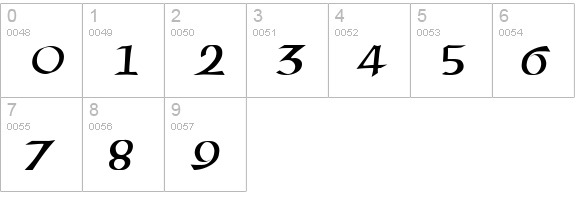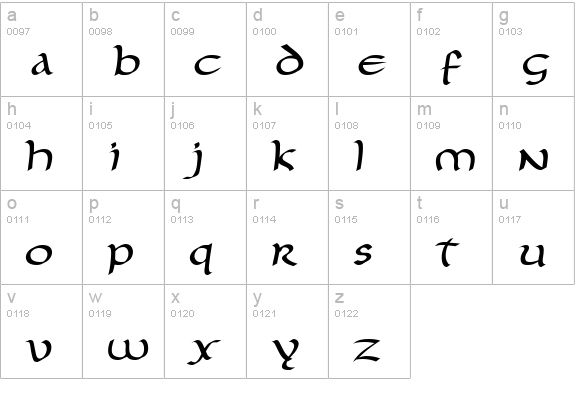
ForgottenUncial Font Details
ForgottenUncial font is a beautiful and elegant typeface that exudes a sense of mystery and antiquity. This unique font is inspired by ancient calligraphy styles, with its intricate swirls and curves adding a touch of sophistication to any design. The timeless appeal of ForgottenUncial makes it a perfect choice for projects that require a touch of old-world charm. One of the best things about ForgottenUncial font is that it is completely free to use. Whether you are working on a personal project or a professional design, you can download this stunning font for free at FontsMarket.com. With its graceful letterforms and classic style, ForgottenUncial is sure to make a lasting impression on your audience. Add a touch of elegance to your designs with this beautiful and versatile font today!